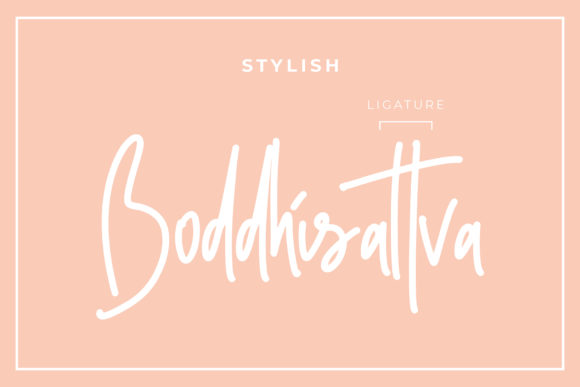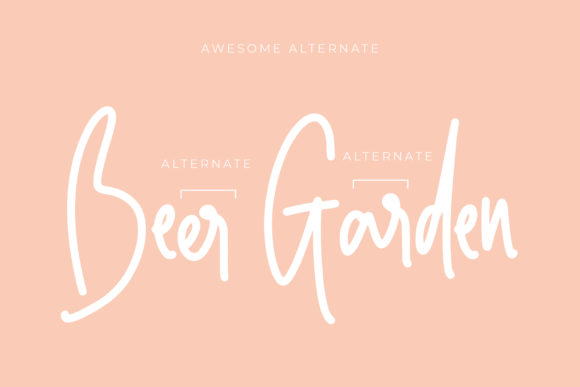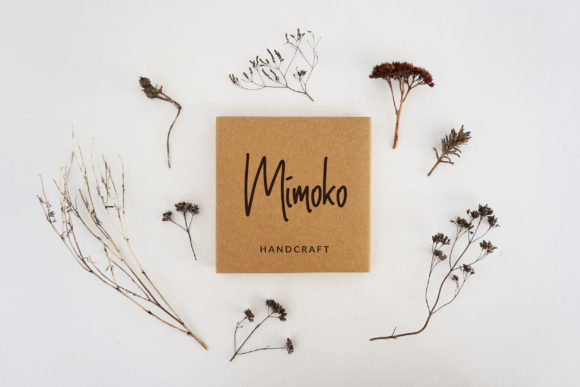
Introduction to Justtony Font
Justtony is an exquisite handwritten font, masterfully designed to become a true favorite.
Key Features of Justtony Font
Why Choose Justtony Font?
Justtony Font offers exceptional quality and versatility, making it a valuable addition to your design toolkit. Whether you’re creating for personal projects or commercial use, Justtony Font delivers professional results.